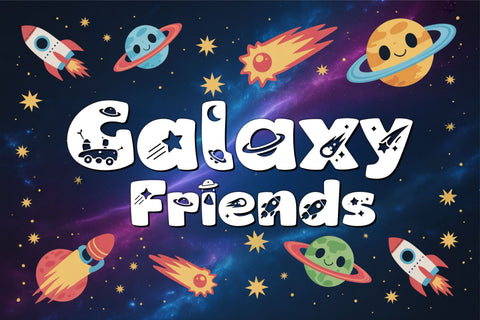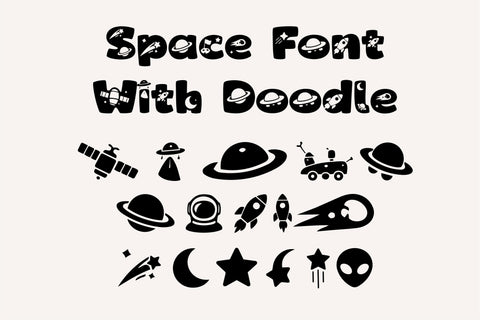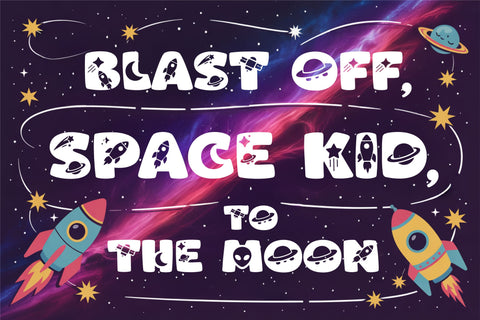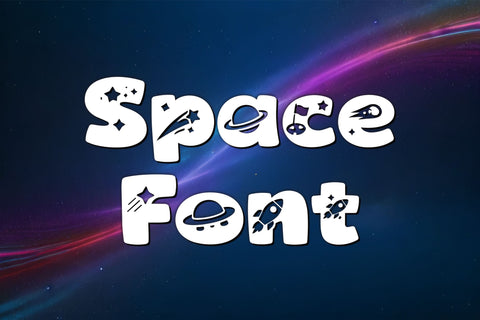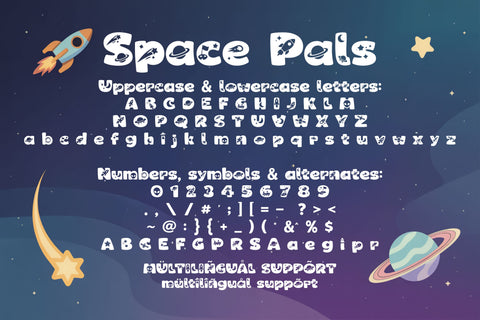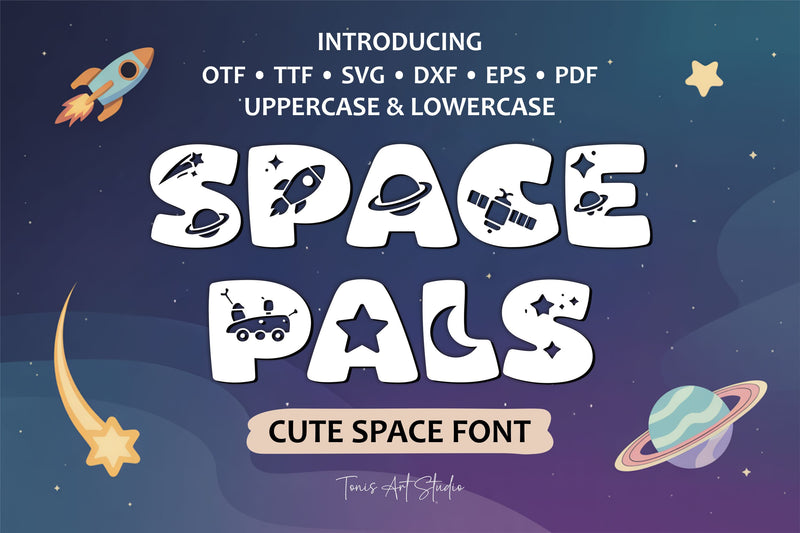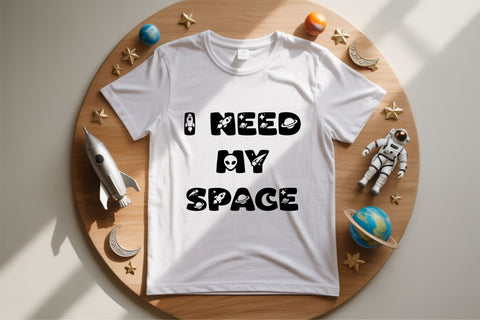
Space Pals – Cute Space Font for Kids & Playful Projects
Space Pals is a joyful and playful space-themed font designed to bring imagination and fun into kids’ creative projects. Each letter is filled with charming space details like rockets, planets, stars, aliens, and cosmic elements, turning simple words into exciting galaxy adventures.
With its bold, rounded shapes, Space Pals is easy to read while still full of personality. It’s perfect for children’s designs, classroom displays, birthday invitations, t-shirts, stickers, posters, party decorations, educational materials, and playful digital or print projects.
The font includes uppercase and lowercase letters, numbers, symbols, alternates, and multilingual support, giving creators flexibility across many design styles. Space Pals works beautifully for headlines, short phrases, playful branding, and creative graphics that need a friendly and cheerful space vibe.
Space Pals is more than just a font — it’s a creative companion that adds wonder, curiosity, and smiles to every design. Because kids’ typography should always feel fun, imaginative, and out of this world.